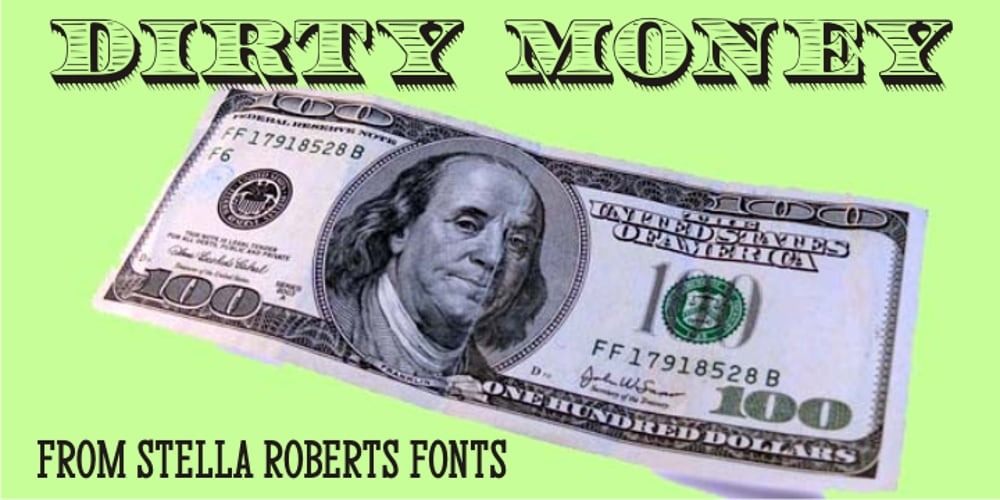
Dirty Money SRF Font Family was designed by published by Stella Roberts Fonts. Dirty Money SRF contains 1 styles and family package options. Dirty Money SRF is a novelty font with a limited character set emulating the lettering found on U.S. currency. The typeface was designed by Brad O. Nelson of the Brain Eaters Font Company. The net profits from my font sales help defer medical expenses for my siblings, who both suffer with Cystic Fibrosis and diabetes. Thank you.